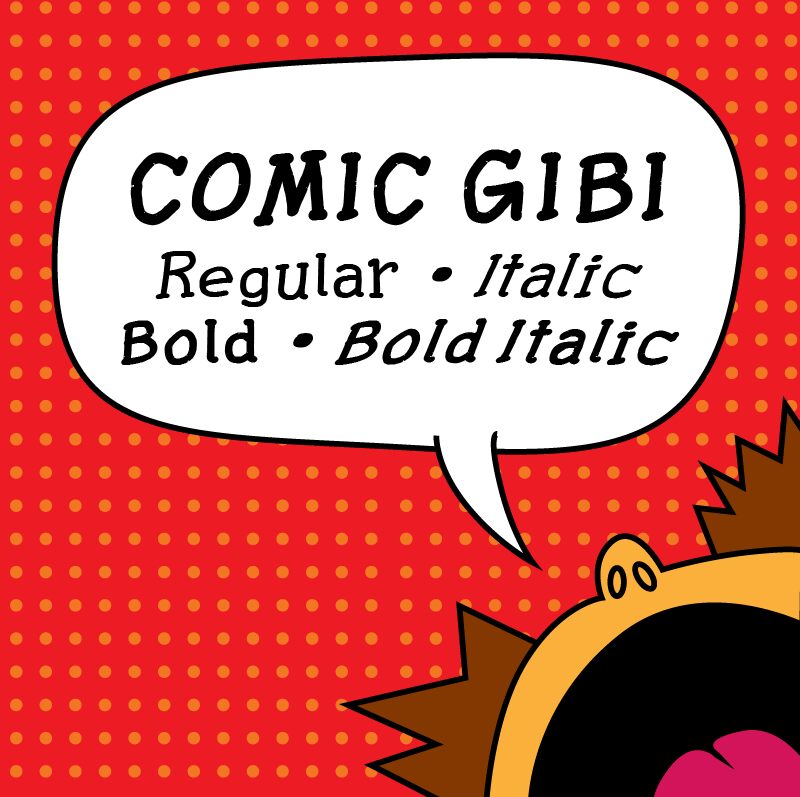
Comic Gibi Bold Italic, by Galdino Otten Fonts, is a free bold italic comic display font with a lively hand-lettered swing. Chunky, softly rounded strokes lean forward, while uneven curves and playful flicks give the lettering the loose energy of brush-drawn cartoon titles.
This free font suits comic covers, children's posters, game graphics, packaging, and social media banners. Its broad shapes and buoyant rhythm work especially well for short headlines and title cards, where the letters have room to show their informal movement.